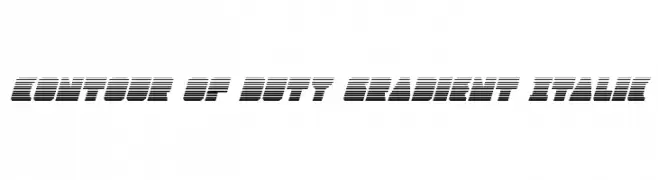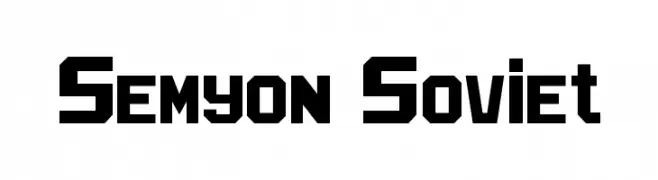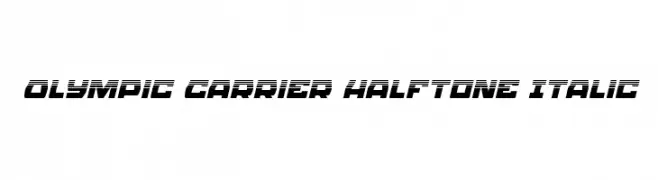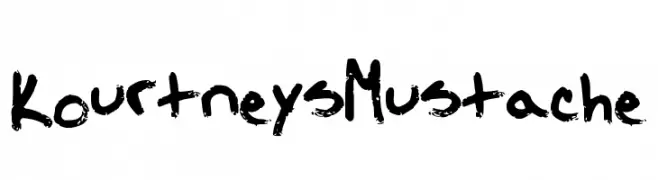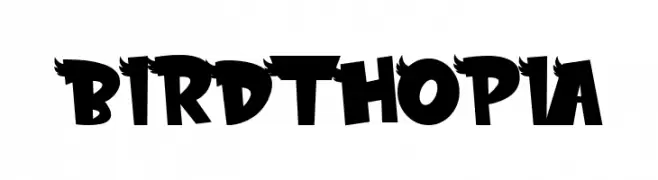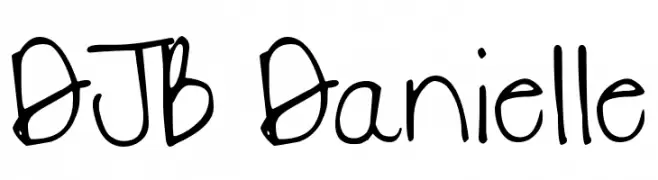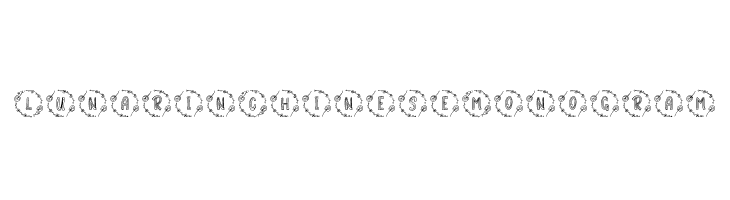
A bold, italicized font with a gradient effect created by horizontal lines, offering a dynamic and modern style.
Ornamental, pictorial font with unique illustrative glyphs.
A bold, geometric font with an industrial, Soviet-inspired style.
( Fonts by Vunira Design )
A bold, decorative font with leaf motifs for a playful, organic look.
A bold, italic font with a dynamic and modern style.
A bold, italicized font with a halftone effect, offering a dynamic and futuristic look.
( Electropithecus )
A bold, pixelated font with a retro digital aesthetic.
( Kourtney-Anne Heap - www.andimharrystyles.tumblr.com )
A bold, hand-drawn font with a textured, brush-like appearance.
( Fonts by Fachran Heit )
A bold, decorative font with playful feather-like accents on each character.
A playful and casual handwritten font with a whimsical and dynamic style.